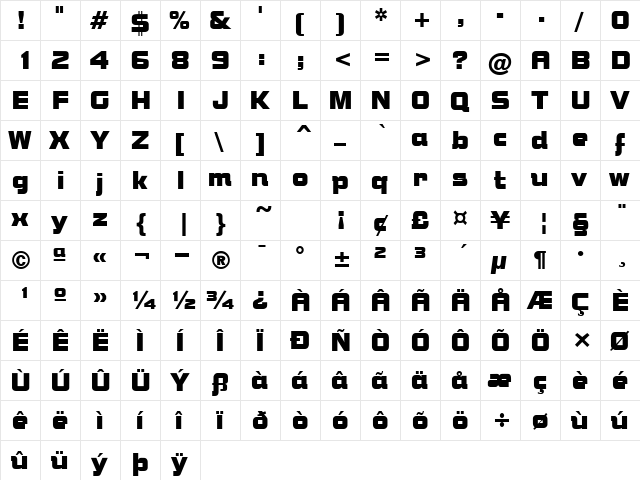
PT Square Peg Normal
Design Context for PT Square Peg Typeface
PT Square Peg is a composed and adaptable typeface that performs quietly and consistently across a wide range of design contexts.